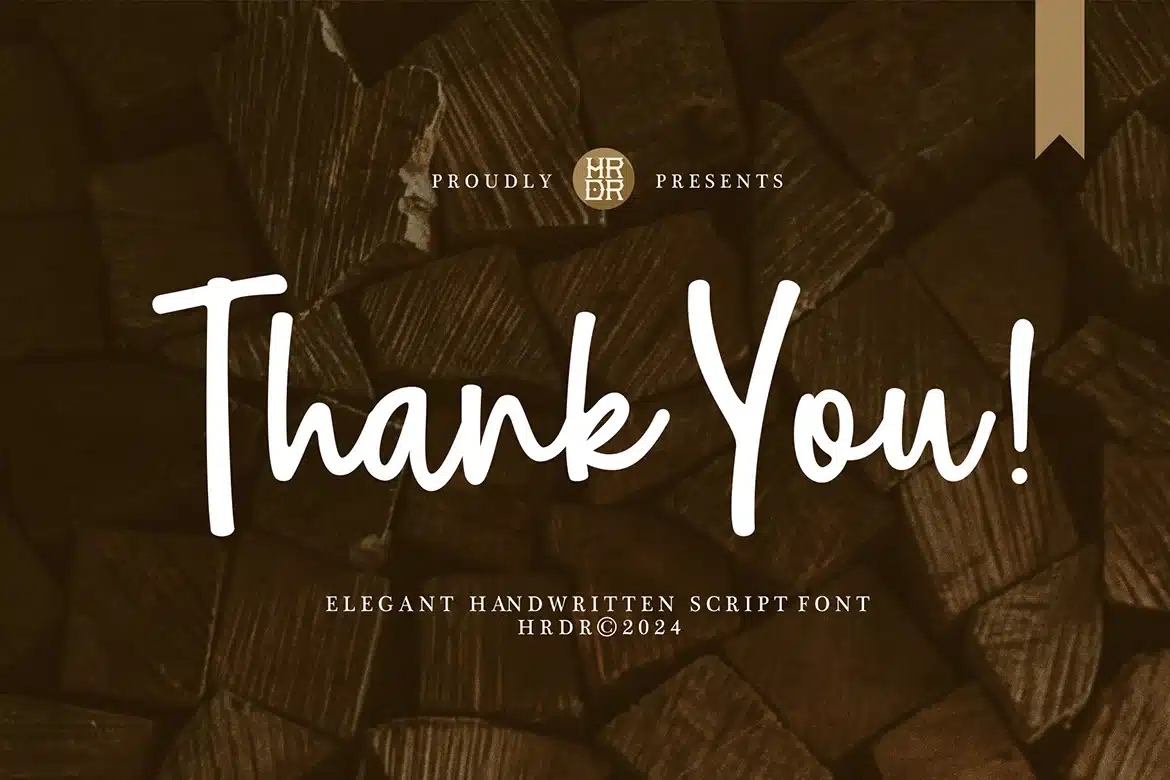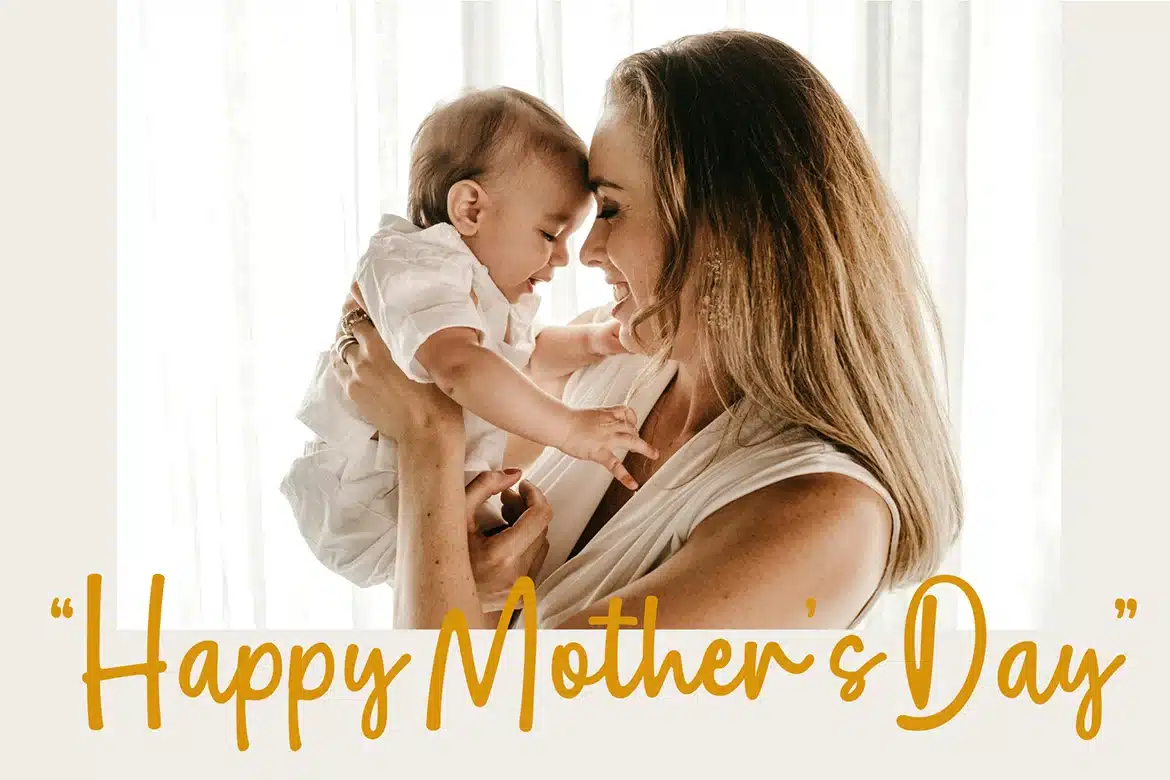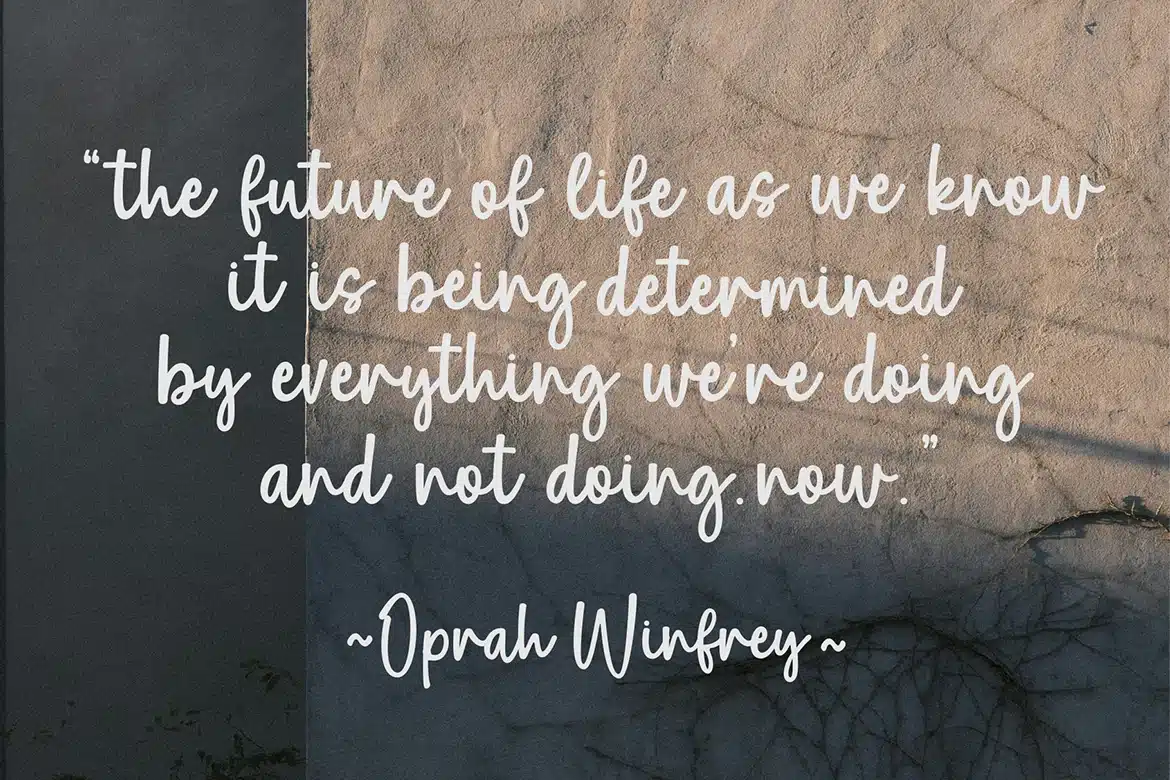
Handmade Love’s – Elegant Handwritten font
Handmade Love's is a Simple Elegant Handwritten font, perfect for quotes, crafting, branding, invitation, stationery, wedding designs, social media posts, advertisements, product packaging, product designs, label, Posters, photography, special events, or anything.
Font Features :
- numeric & Multilingual support